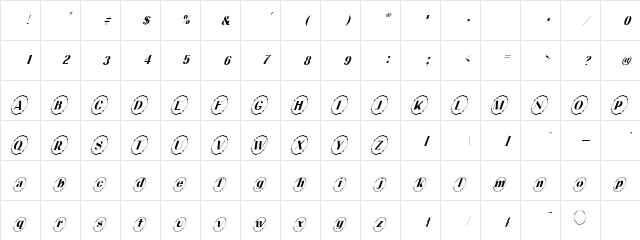
QintarItalics Regular Font Preview
QintarItalics Regular
QintarItalics Regular Font Details
Design Context for QintarItalics Typeface
QintarItalics is a composed and adaptable typeface that performs quietly and consistently across a wide range of design contexts. Its italic angle brings a sense of urgency and motion to the letterforms.
Pro Tip: Use QintarItalics for emphasis, pull quotes, and subheadings where its slanted energy can add rhythm to the layout.